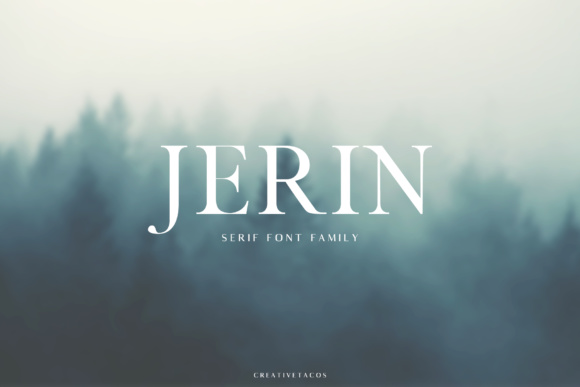
Enter the world of visual enchantment with Jerin Font, a serif font family designed to captivate and inspire. Created by the visionary minds at Creative Tacos, Jerin is not just a collection of letters; it's an artistic masterpiece that transforms your designs into breathtaking works of art.
With its graceful curves, elegant lines, and timeless appeal, Jerin adds a touch of sophistication and refinement to any project. Its versatility knows no bounds, effortlessly adapting to a multitude of design styles and concepts. Whether you're crafting a captivating logo, an alluring poster, or a stunning website, Jerin will elevate your creations to new heights.
Imagine your designs adorned with Jerin's timeless beauty. Its characters dance across the page, carrying your message with poise and elegance. The smooth transitions between thick and thin strokes create a visual symphony that draws the eye and captivates the senses.
With Jerin, you'll discover a world of possibilities. Its extensive character set, including multilingual support, ensures seamless integration with a wide range of languages. Unleash your creativity and craft designs that speak to a global audience, transcending linguistic barriers.
Join the ranks of creative visionaries who have embraced Jerin's allure. Experience the joy of effortless design as your ideas take shape with unparalleled beauty and impact. Let Jerin be your muse, your creative companion, as you embark on a journey to design greatness.